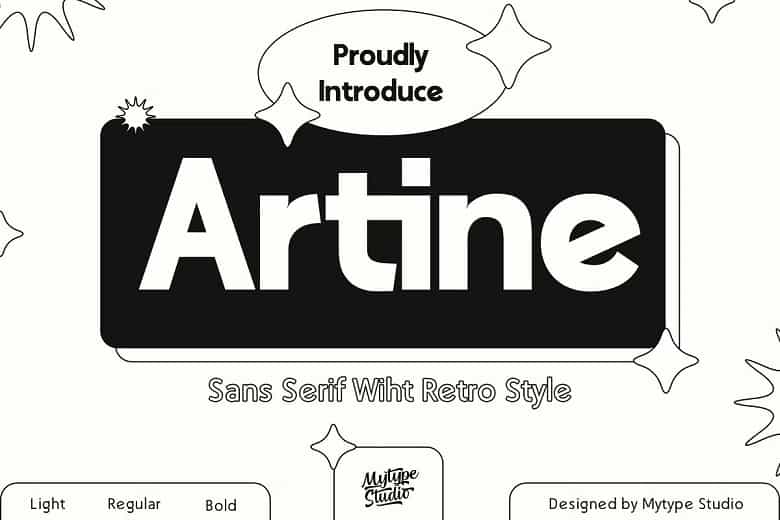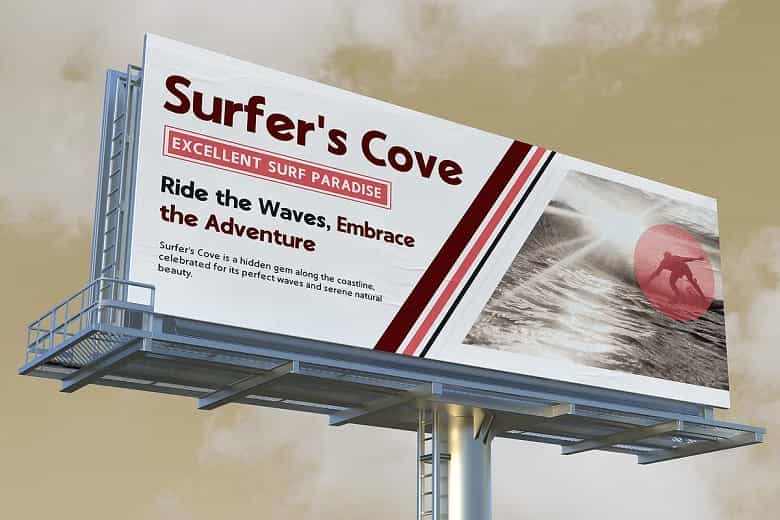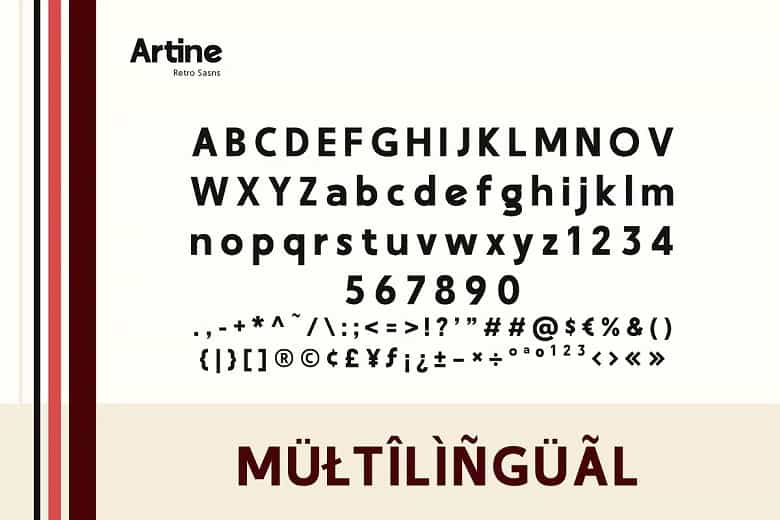
Discover Artine Font, part of the Sans Serif Retro collection—a versatile and unique font perfect for adding a personal touch to your projects. Download it for free and enjoy crafting designs with style, from invitations to social media posts. This font is available exclusively for personal use, giving you the freedom to create without limits. Unlock your creativity with Artine Font today!
Artine is inspired by classic retro sans aesthetics font, Artine offers a versatile sans serif typeface available in three distinct weights: The three available font styles are Light, Regular, and Bold. If you are working on an old school project, a brand identity project, or a typographic piece, Artine gives that combination of the old and new.